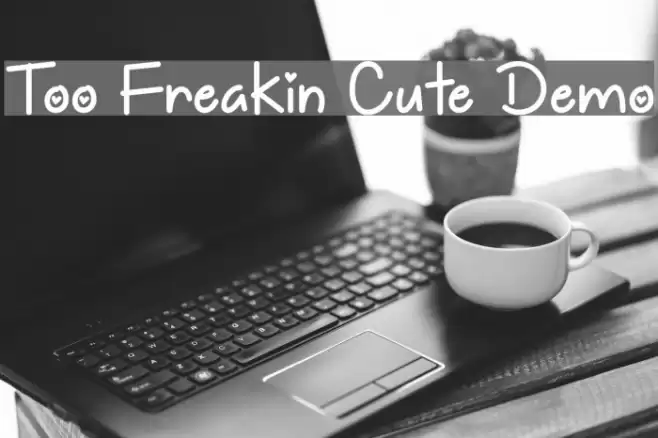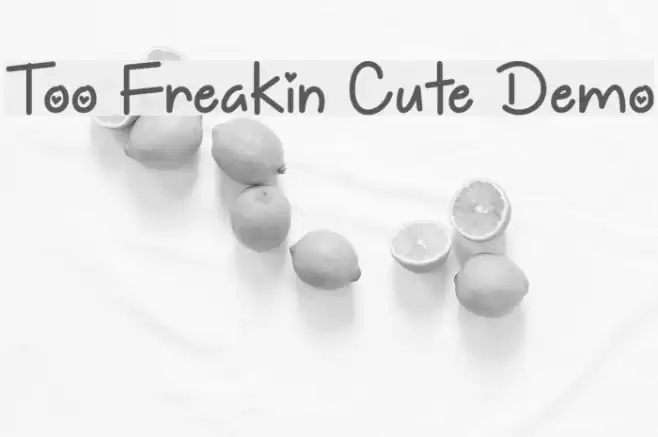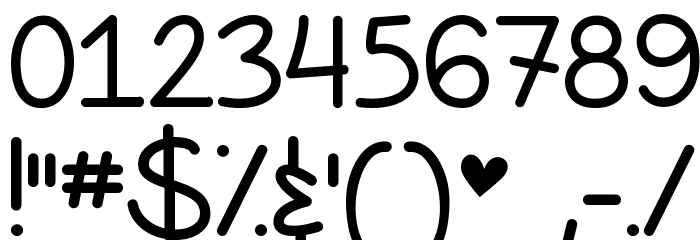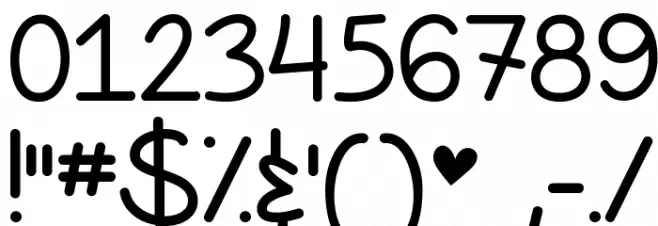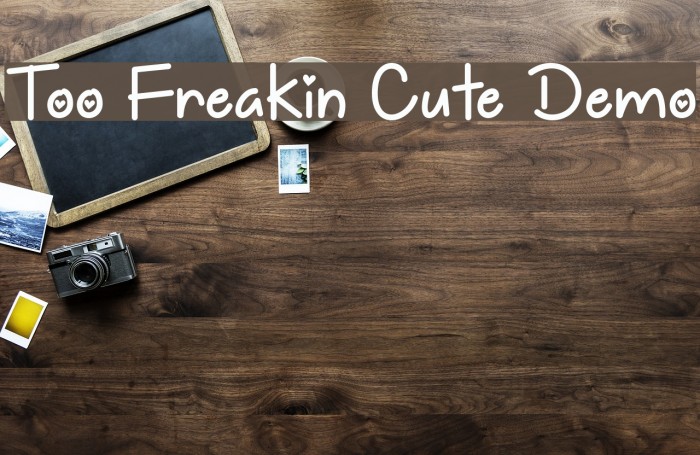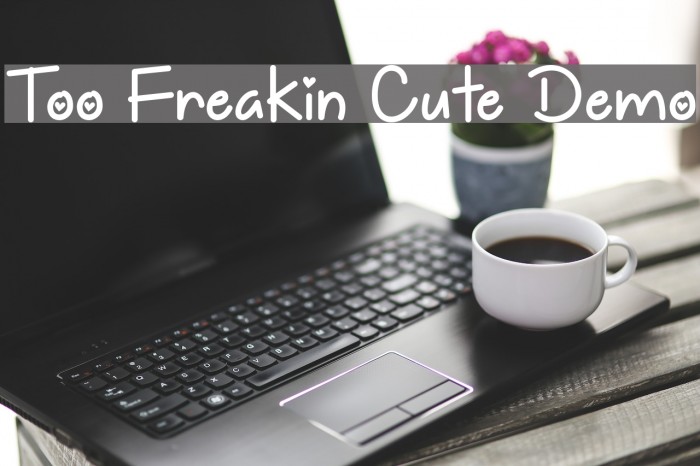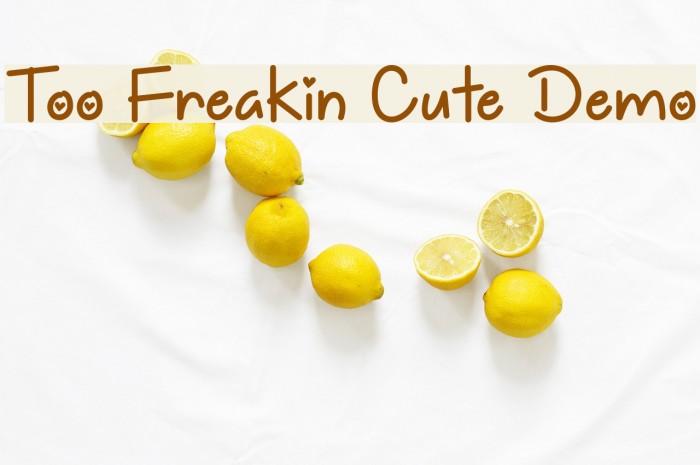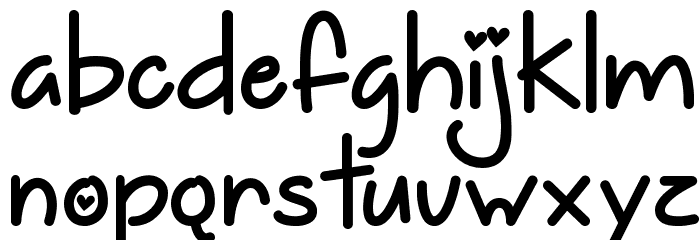
Too Freakin Cute Demo Font
Too Freakin Cute Demo Description
This playful and whimsical font features a handwritten style with a charming and casual appearance. The letters are rounded and smooth, with a consistent stroke width that adds to its friendly and approachable feel. Unique elements, such as small heart shapes incorporated into some characters, enhance its cute and endearing quality. The font maintains a consistent baseline, ensuring readability while adding a touch of personality. Its informal style makes it perfect for projects that require a fun and lighthearted touch.
A playful, handwritten font with charming heart details and a casual style from Uncategorized fonts.
- Proposed Projects: Ideal for children's books, greeting cards, playful branding, and social media graphics.
- Use Case: Logos, Headlines, Informal Invitations